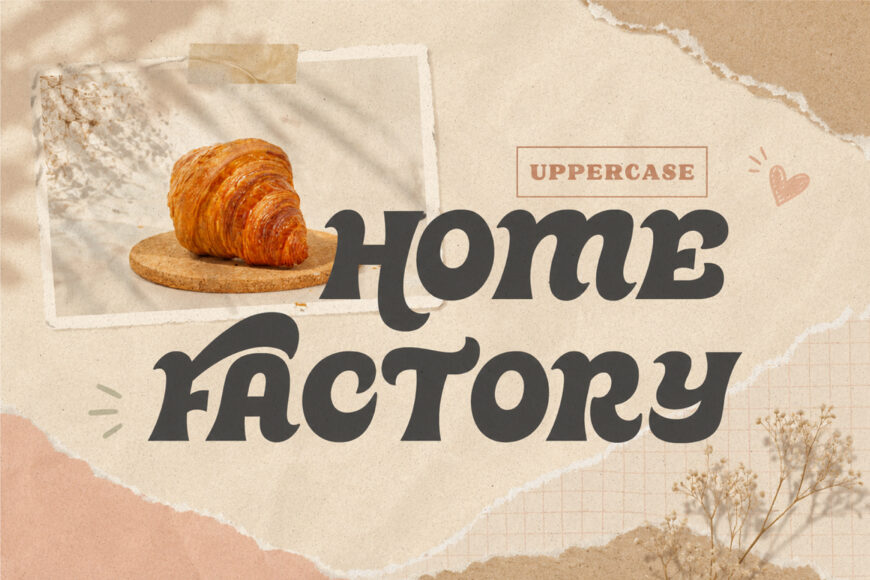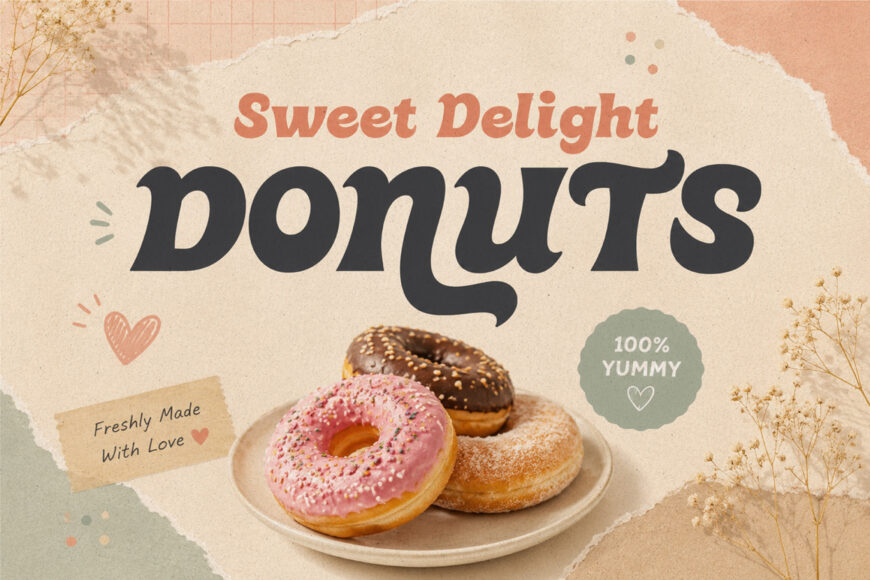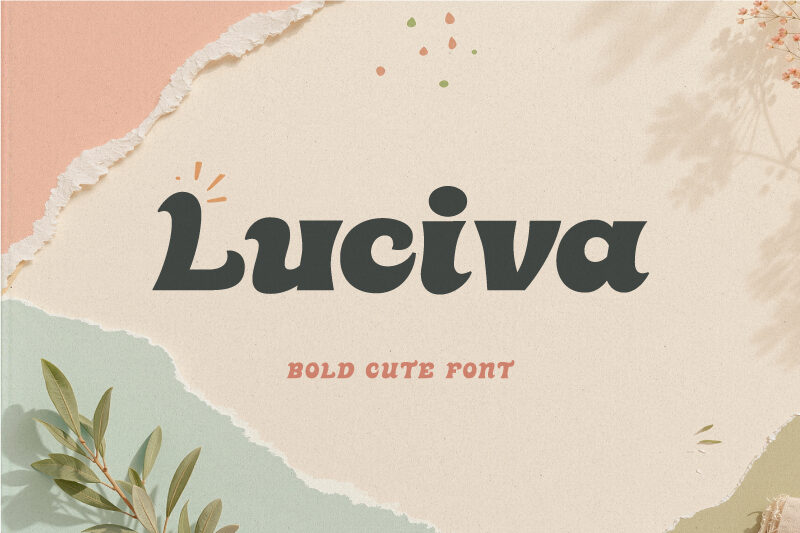
Luciva Font
Luciva is a cute, bold, and elegant typeface designed by Salamahtype. With its smooth and chunky character, it brings a playful yet polished feel to creative designs. Luciva is well suited for branding, logos, invitations, headlines, social media graphics, packaging, and other eye-catching projects.
Designed by: Salamahtype